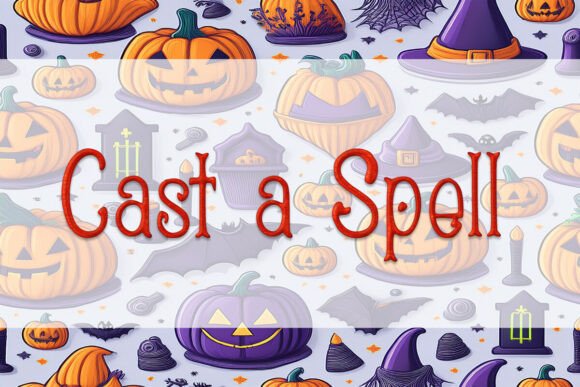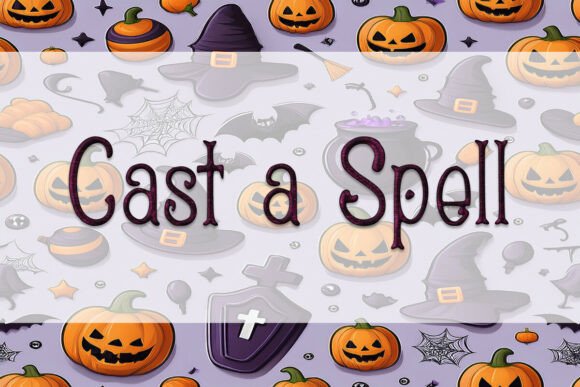
Unlock the Magic of Design with Cast a Spell Font
Have you ever been in the midst of a design project, pouring your heart and soul into it, only to hit a creative roadblock because you just can’t seem to find the right font? I certainly have. It was during one of those moments, working on a client’s branding project, that I stumbled upon Cast a Spell font. It was as if the universe had conspired to lead me to this enchanting typeface. In this article, I’ll share my journey with Cast a Spell font, its features, and how it can become your go-to font for various design projects.
A Personal Encounter with Cast a Spell Font
I was working on a branding project for a mystical-themed cafe. The client wanted a font that would transport their customers to a magical world. After hours of searching, I finally came across Cast a Spell font. Its whimsical and enchanting design immediately caught my attention. I knew right then and there that it was the perfect fit for the project. The font added a touch of magic to every design element, from the logo to the menu.
An Honest Review of Cast a Spell Font
Here’s what I love about Cast a Spell font:
- ✨ Versatility: Cast a Spell font is incredibly versatile. It can be used for a wide range of design projects, from fashioning shirt graphics to crafting appealing stickers, establishing a distinctive brand identity, or creating standout magazine layouts.
- 💫 Aesthetic Appeal: The font’s design is visually appealing, adding a touch of enchantment to every design endeavor.
And here are some small quirks or limitations:
- ⚠️ Legibility at Small Sizes: Like many script fonts, Cast a Spell font may lose legibility at very small sizes. It’s best used at larger sizes where its details can shine.
- 🤔 Overuse: Because of its enchanting design, there’s a risk of overusing the font in a single project. It’s essential to balance it with other design elements.
A Practical Guide to Using Cast a Spell Font
- Experiment with OpenType features and glyphs to add more magic to your design.
- Take advantage of stylistic alternates and OpenType features to create unique designs.
- Use the font to create eye-catching headings and titles.
The Backstory of Cast a Spell Font
Cast a Spell font was designed with the intention of capturing the essence of magic and wonder. Its creator, a passionate typographer, was inspired by ancient manuscripts and mystical symbols. The goal was to create a font that would transport users to a world of enchantment, making it perfect for a wide range of creative projects.
Cast a Spell font is more than just a typeface; it’s a tool to unlock your creativity and add a touch of magic to your designs. Whether you’re a designer, crafter, or creative hobbyist, this enchanting font is sure to become your reliable partner in bringing your imaginative projects to life.